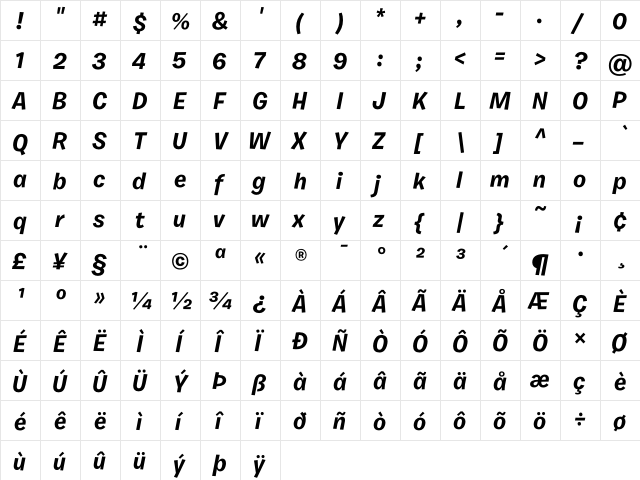
Burbank Small Bold Italic Font Preview
| Foundry | House Industries |
| Designer | Tal Leming |
Design Context for Burbank Small Typeface
Burbank Small offers clean, dependable letterforms without strong stylistic allegiance, making it a practical choice for designers who need flexibility. The slanted form adds forward momentum and visual energy. The heavy weight commands attention and anchors typographic hierarchies.
Pro Tip: Try Burbank Small for annotation and caption copy alongside an upright companion — the contrast in angle creates a dynamic but ordered typographic system.